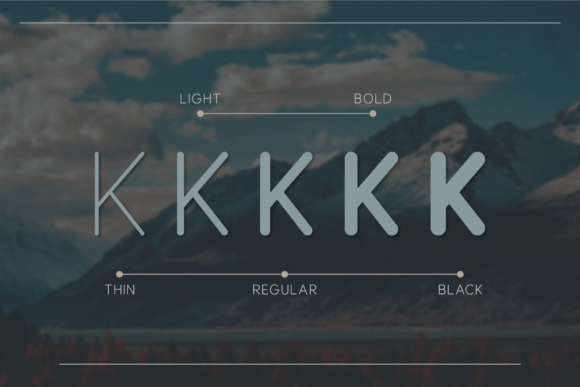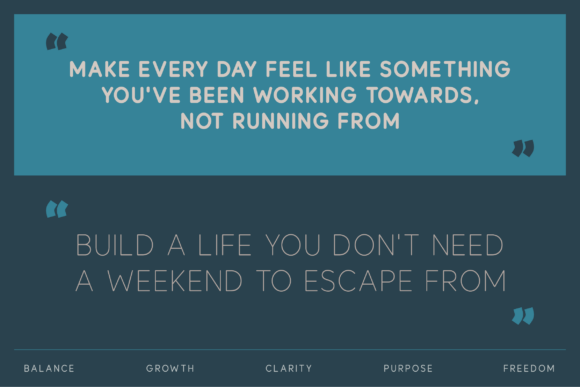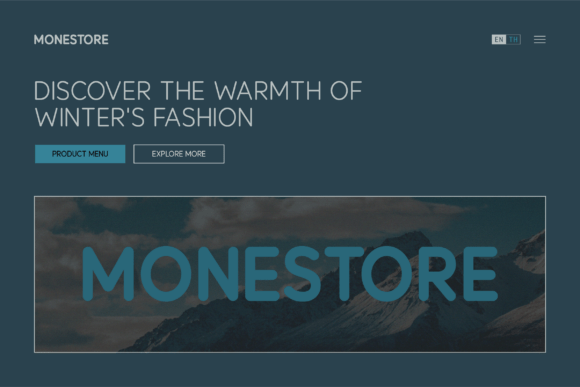
Introduction to Prolosure Rounded Font
Have you ever stared at a blank canvas, a blank document, or a blank design project, and suddenly, the perfect font pops into your head? For designers, this moment is pure magic. It’s the spark that ignites a creative project, making all the difference between a good design and a great one. This time, that spark might just be the Prolosure Rounded Font, a game-changing all-caps sans serif font family that brings clarity, warmth, and bold personality to your projects.
As a valuable resource for designers, the Prolosure Rounded Font family offers a unique blend of legibility and aesthetic balance, making it perfect for a wide range of creative projects. From logos and packaging designs to social media visuals and high-impact headlines, this font adapts beautifully while adding a polished, confident touch.
Key Features of Prolosure Rounded Font
- High-quality design resource with a modern, rounded aesthetic, suitable for creative projects.
- Designed with a clean and minimalist approach, making it ideal for use in digital products and branding.
- Suitable for use in a variety of creative projects, including logos, icons, graphics, and digital signage.
Honest Review: Prolosure Rounded Font
I recently had the chance to work with the Prolosure Rounded Font for a creative project, and I must say it’s been a game-changer. This font is a high-quality design resource that’s perfect for designers looking for a clean and modern aesthetic.
One of the things that works well with the Prolosure Rounded Font is its versatility. It’s suitable for a wide range of creative projects, from logos and branding materials to digital products and print materials. The font’s rounded edges also make it easy on the eyes, reducing visual fatigue and making it perfect for long-form content.
- ✨ High-quality design resource with a clean and modern aesthetic
One of the limitations of the Prolosure Rounded Font is that it’s not suitable for projects that require a more bold or dramatic font. The font’s rounded edges can make it feel a bit too soft or playful, which may not be ideal for every project.
Overall, I’m really impressed with the Prolosure Rounded Font. It’s a great addition to any designer’s toolkit, and I highly recommend it for designers looking for a high-quality, free design resource.
Introduction to Prolosure Rounded Font
Prolosure Rounded Font is a high-quality, free design resource perfect for creative projects. Its unique rounded design makes it ideal for applications requiring a clean and modern look.
Common Use Cases for Prolosure Rounded Font
Prolosure Rounded Font is commonly used in:
- Infographics
- Presentations
- Business cards